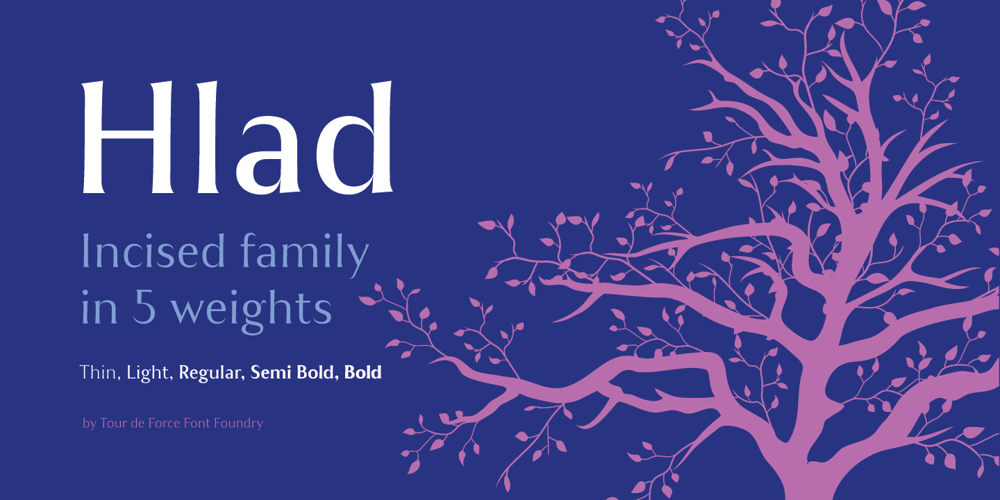
Hlad Font Family was designed by Dusan Jelesijevic and published by Tour De Force. Hlad contains 5 styles and family package options. Hlad is incised sans serif family inspired by carved Roman letters. Hlad comes in 5 weights – Thin, Light, Regular, Semi Bold and Bold. It is a low contrast typeface, with asymmetric flare serifs and sharp bowl and shoulder endings. Hlad combines elegance of calligraphic endings with stable, solid constructional stems from sans serif group of typefaces.